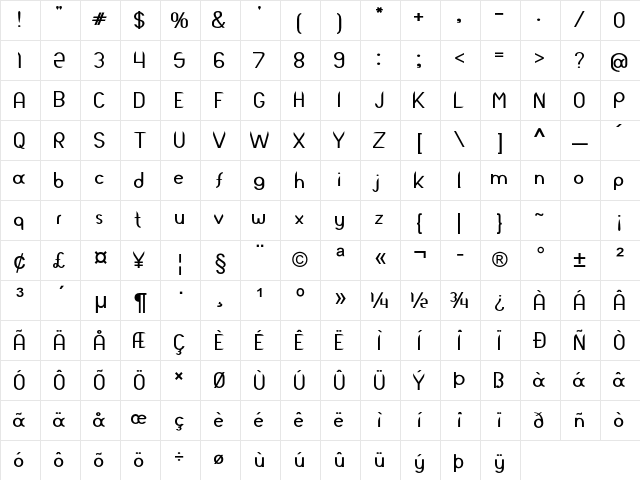
Lutin Bold
Design Context for Lutin
Lutin is a composed and adaptable typeface that performs quietly and consistently across a wide range of design contexts. Its bold stroke weight gives it real presence on the page.